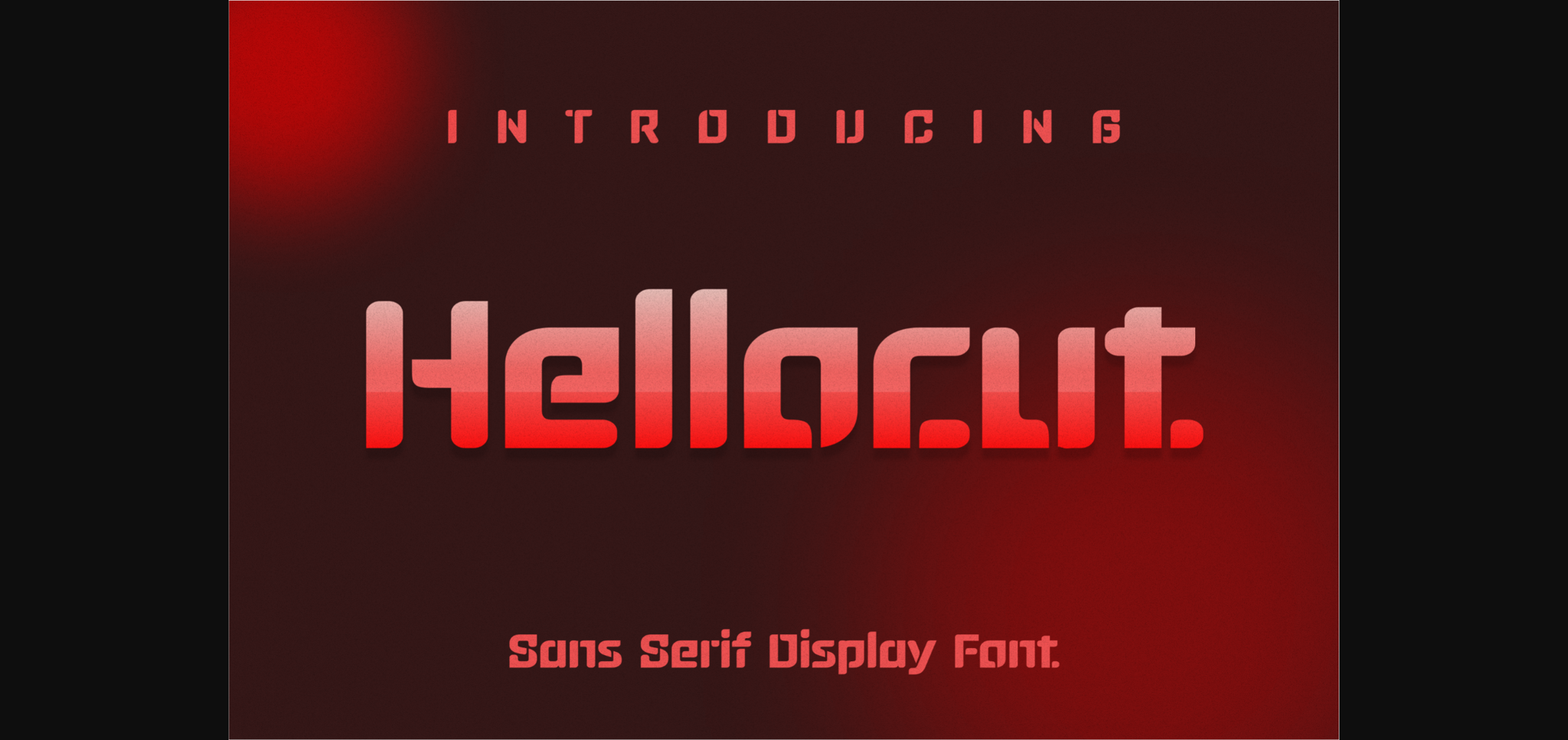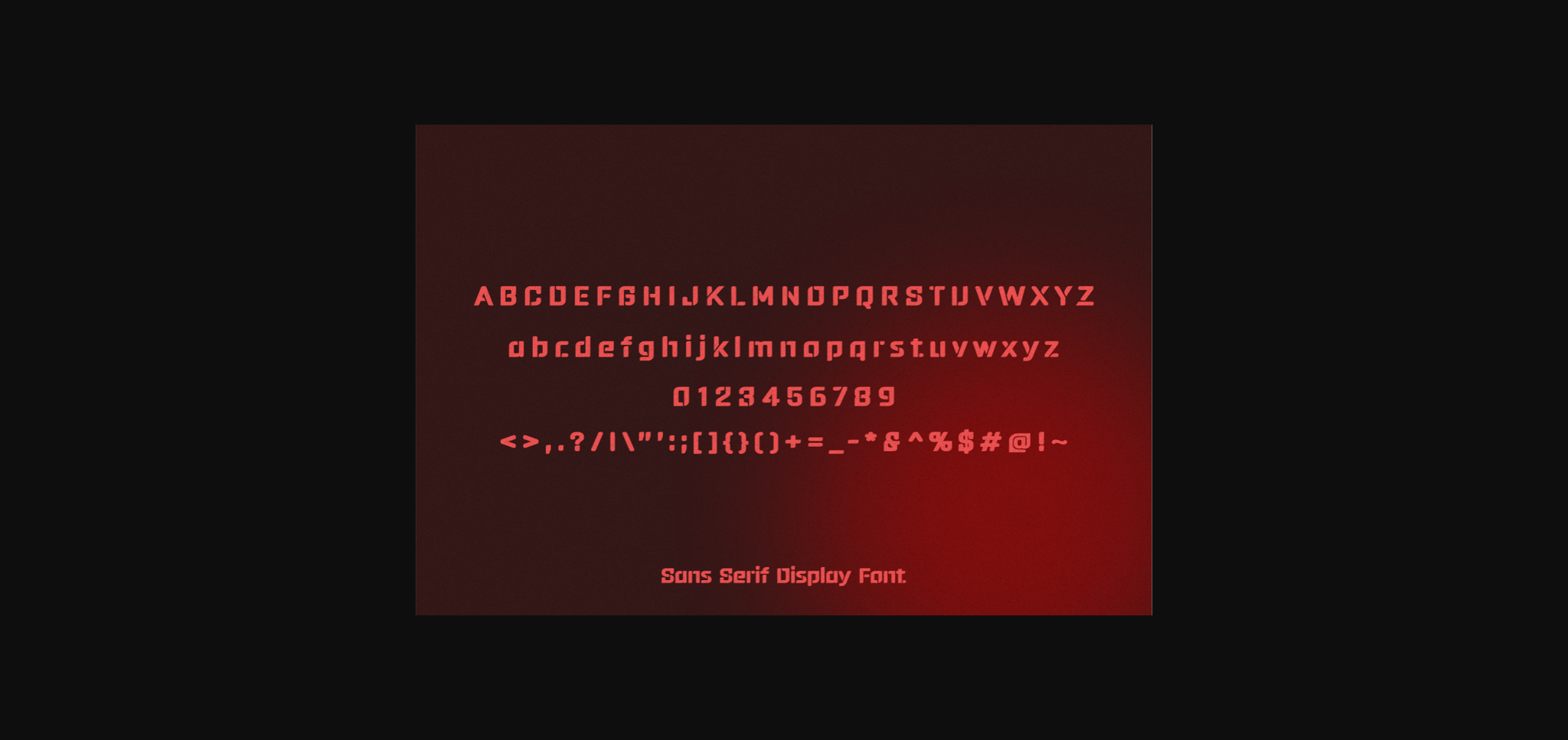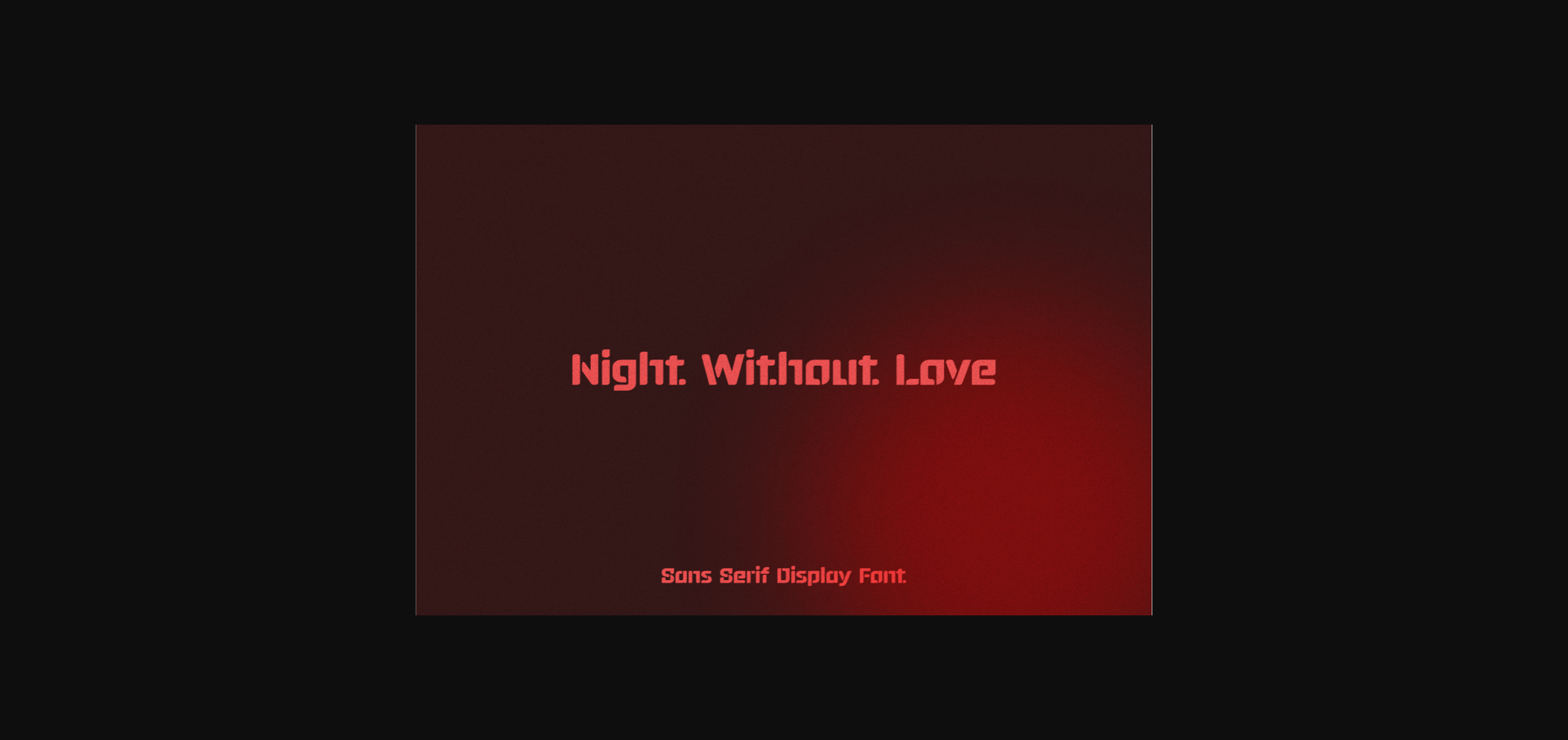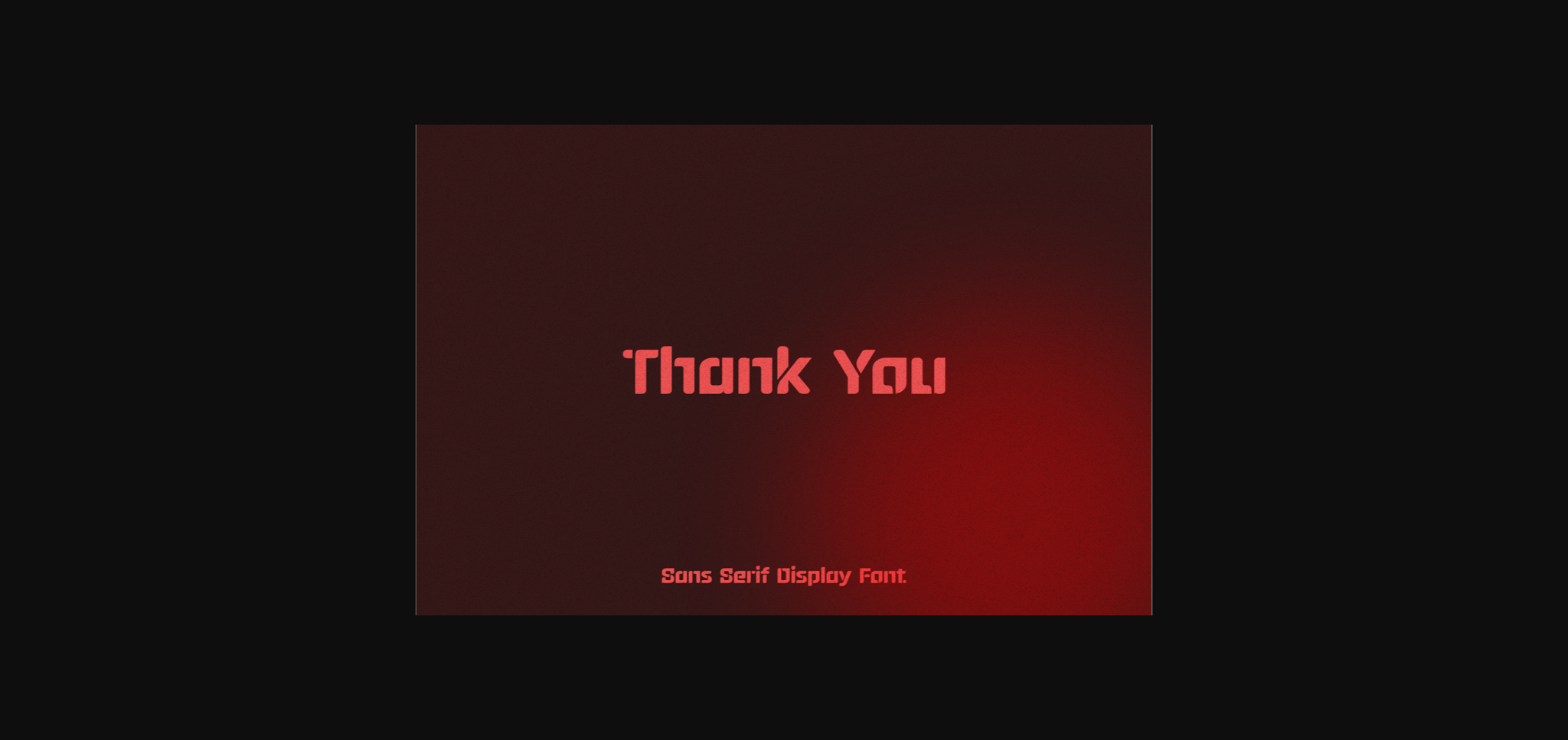
About Hellocut Font
Hellocut font – Modern Font is a bold and authentic display font. The font is suitable for any branding project like logo, t-shirt printing, esport, and many more. outstanding in a wide range of contexts.